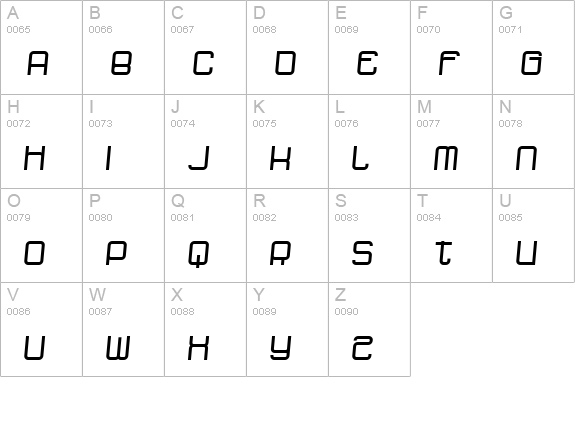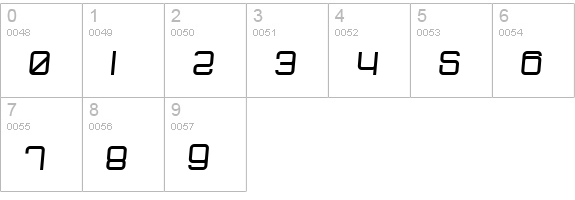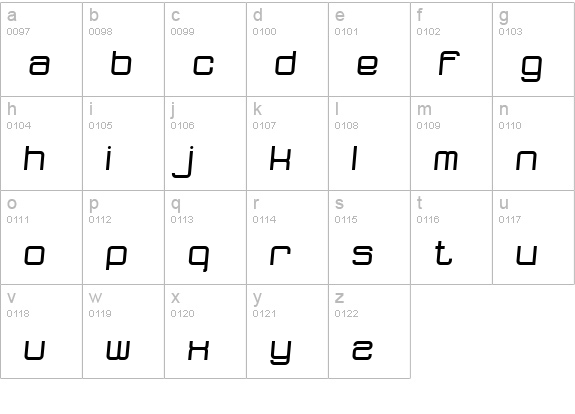
dopenakedfoul relaxed Font Details
The dopenakedfoul relaxed font is a stylish and modern typeface that exudes a sense of casual elegance and sophistication. With its smooth lines and balanced proportions, this font is perfect for adding a touch of refinement to any project. Whether used for branding, graphic design, or advertising, dopenakedfoul relaxed font brings a unique charm and character to your creations. Best of all, this versatile font is available for free download at FontsMarket.com. Embrace the freedom to express your creativity with dopenakedfoul relaxed font and elevate your designs to the next level. Whether you're a seasoned designer or just starting out, this font is sure to inspire and delight with its effortless style and versatility. Don't miss out on this amazing opportunity to enhance your projects with the beauty and elegance of dopenakedfoul relaxed font.